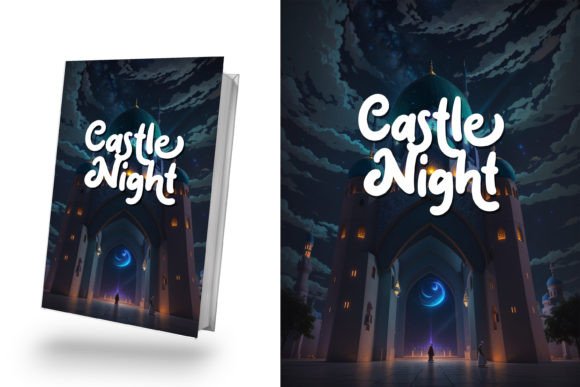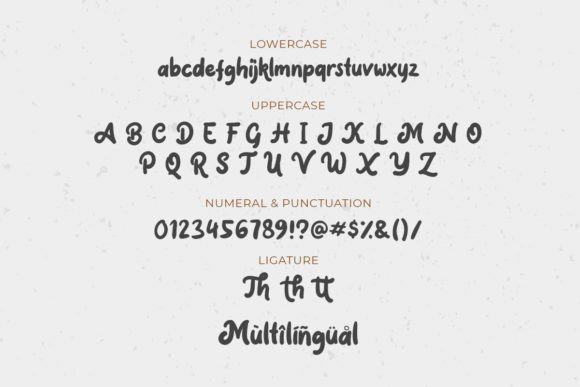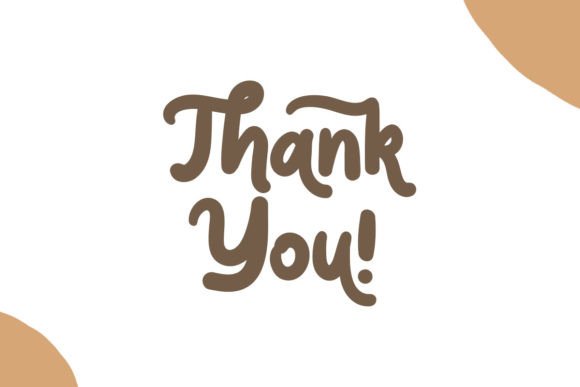
Introduction to Mofanyc Font
Mofanyc is a bold script typeface that is simple yet casual.
This font is perfect for logos, quotes, apparel design, wedding invitations, book covers, and more .
Key Features of Mofanyc Font